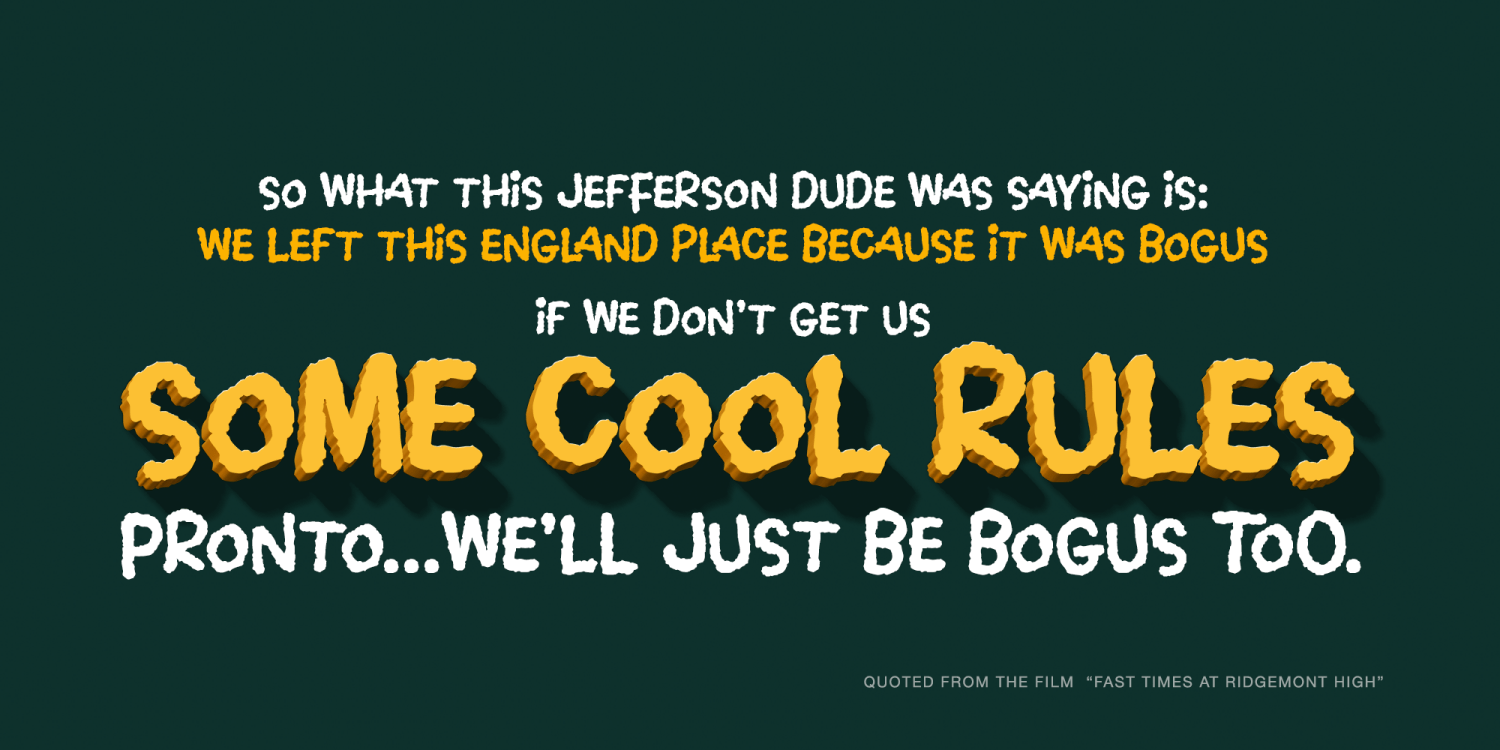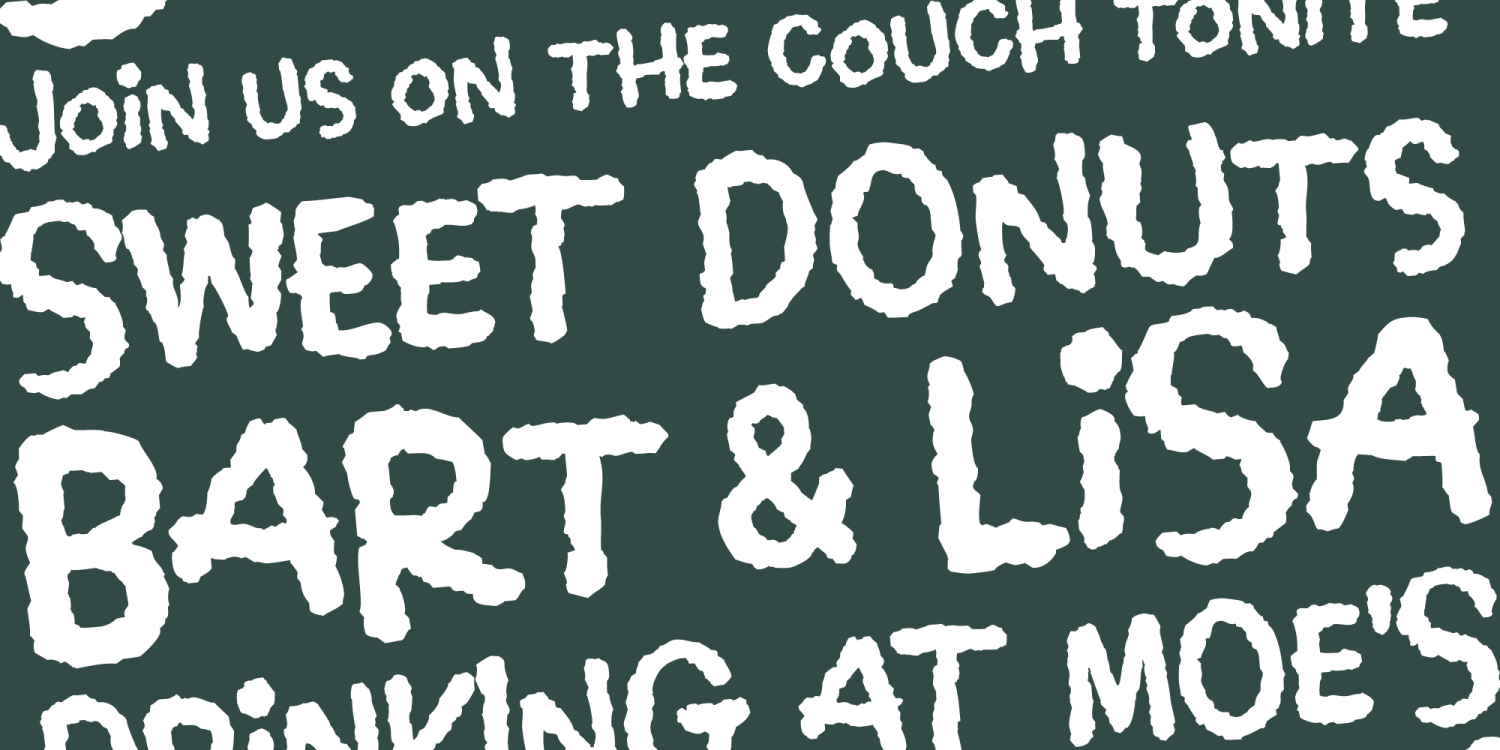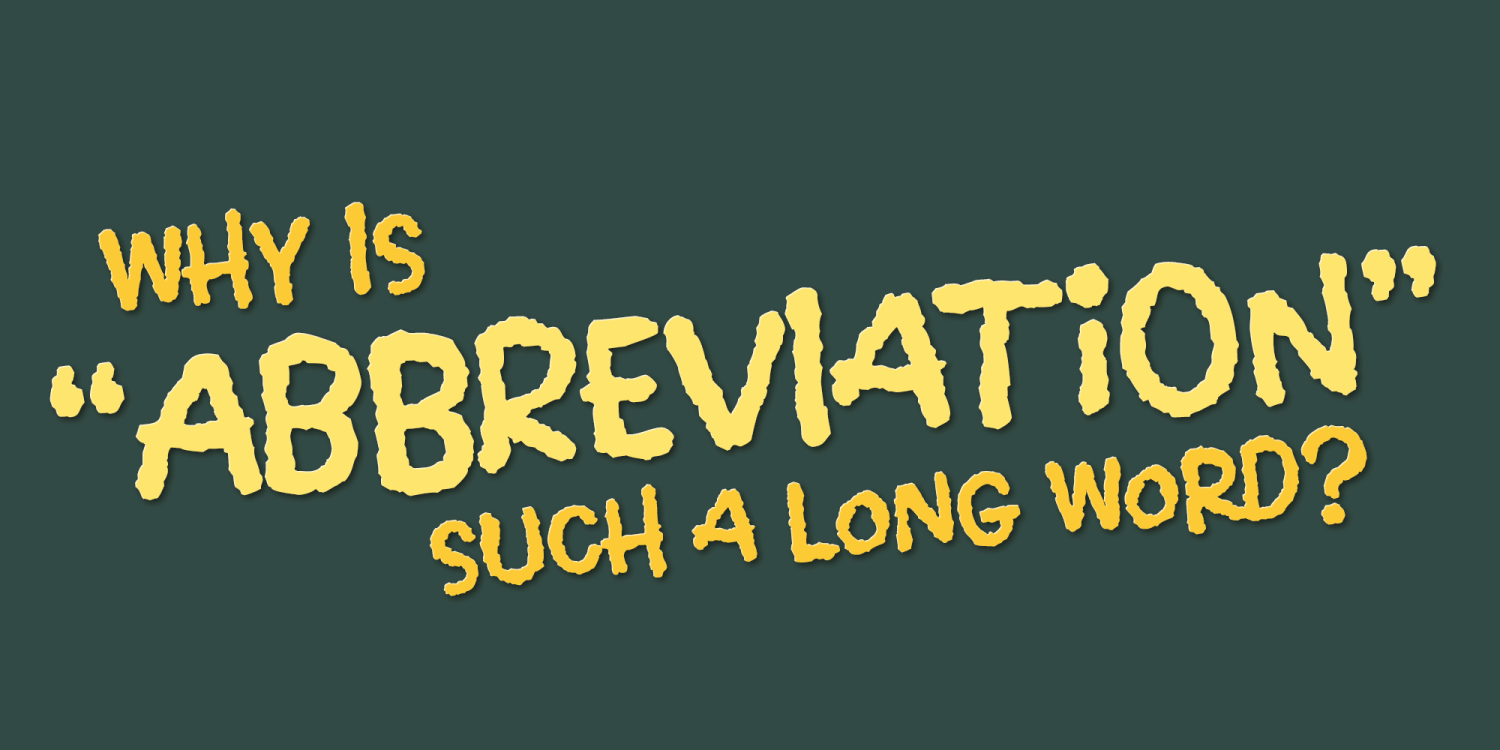
About Suited Horse PB
Suited Horse is an offbeat alternate caps typestyle inspired by the title screen of a 1968 Walt Disney film titled, "The Horse in the Gray Flannel Suit".
This playful and childish font comes with an extensive language set, a stylistic alternates feature that auto-alternates between capitals & lowercase (alt caps), as well as a contextual alternates feature that auto-alternates between sets only where double characters are typed like SS, TT, etc. The contextual alternate feature also enables a few titling word options like "the," "in" and "in the". As noted in the quotes, when these word sets are typed with a space before and after them, it will trigger the swap when contextual alternates is on.
Switching on Contextual Alternates enables automatic alternations between caps and alt caps like AlTeRnAtIoNs to create a more randomized look.
The Suited Horse PB font family includes 388 glyphs.